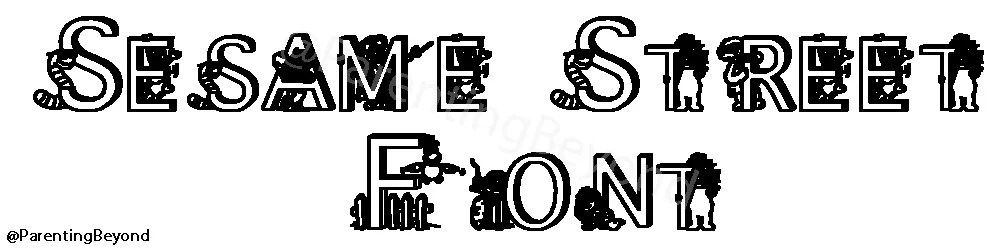
Sesame Street Font Free
Sesame Street Font Free. Sesame street is a completely free font that you can use in your graphic designs. We have everything from tattoo fonts to script, old english and more!